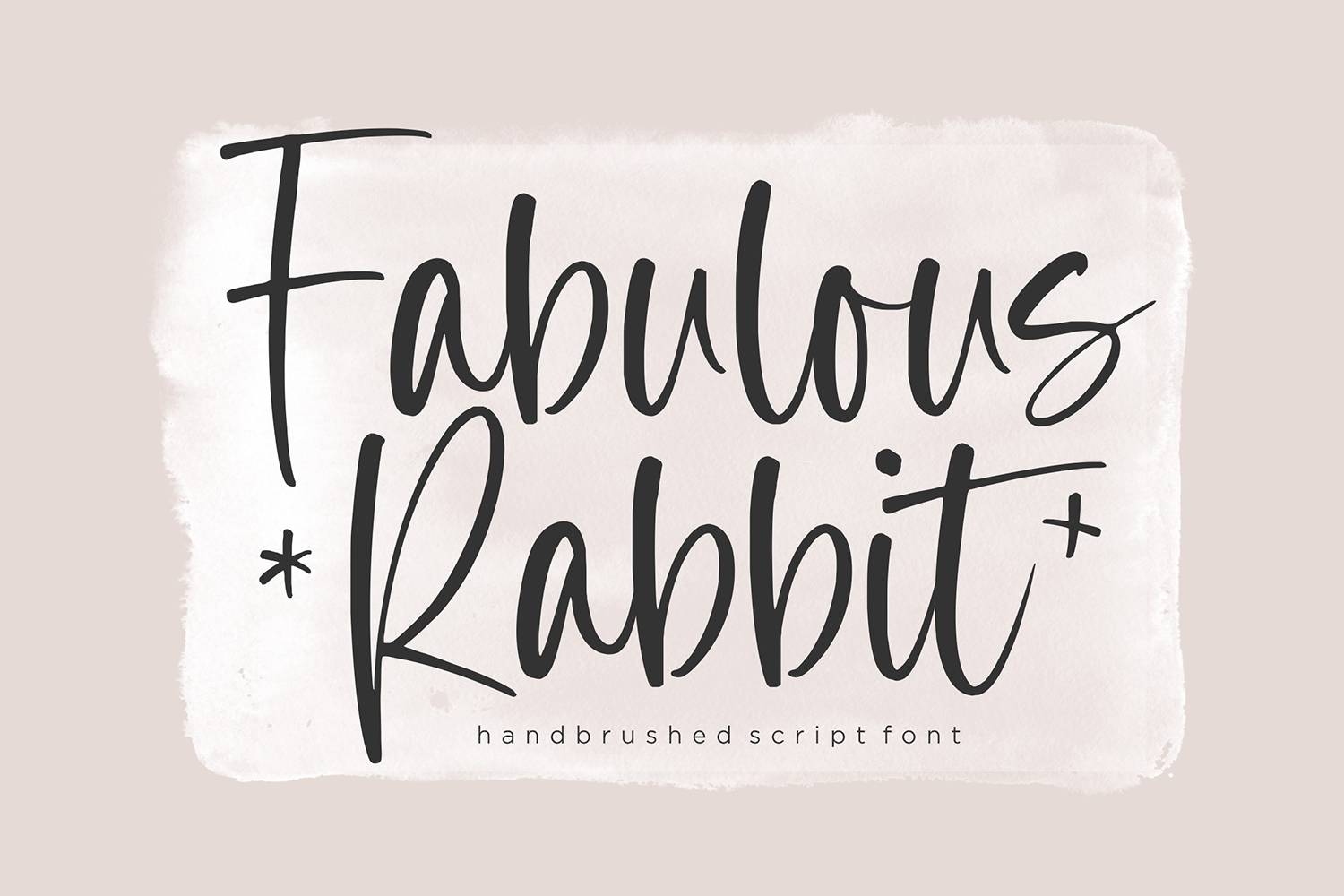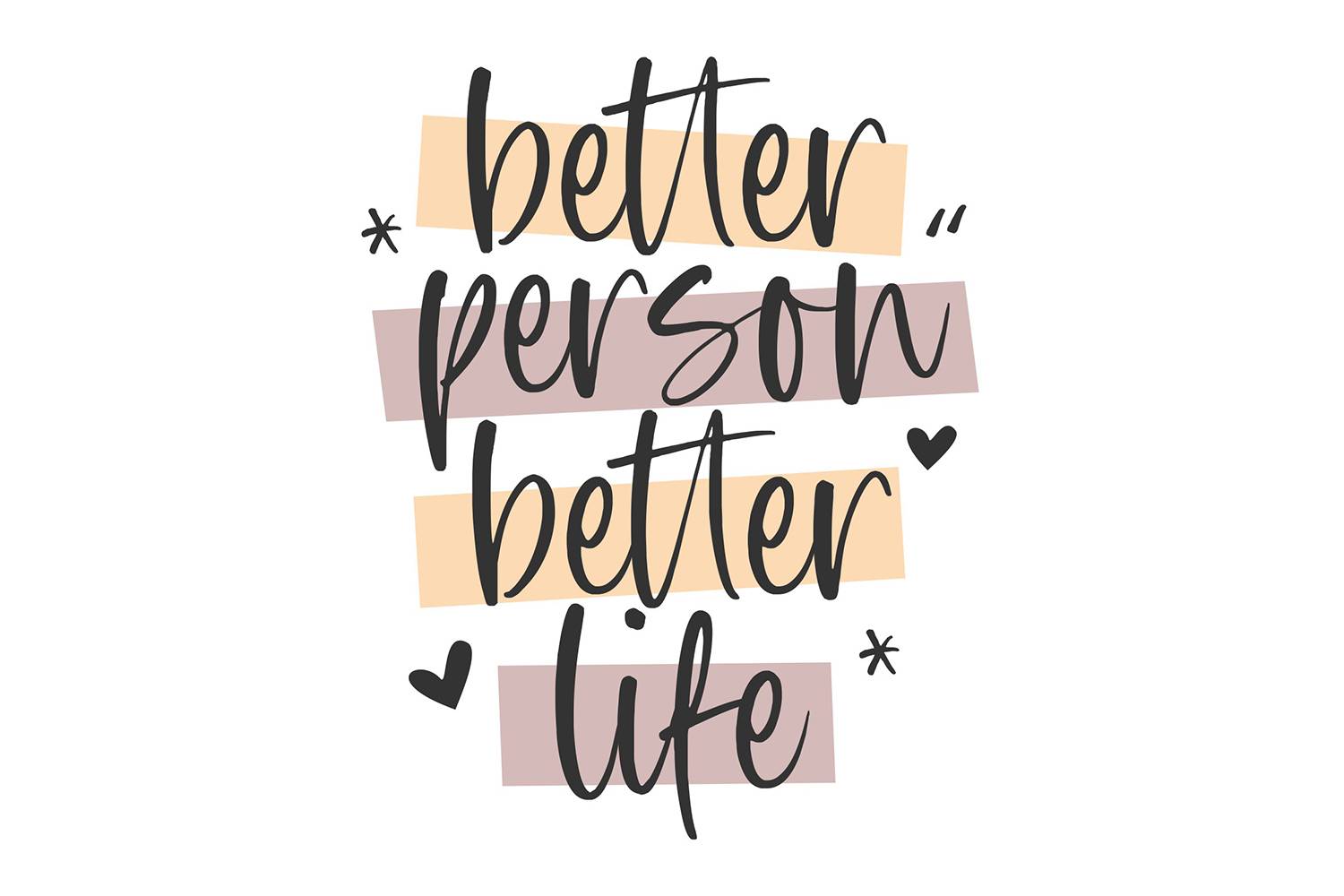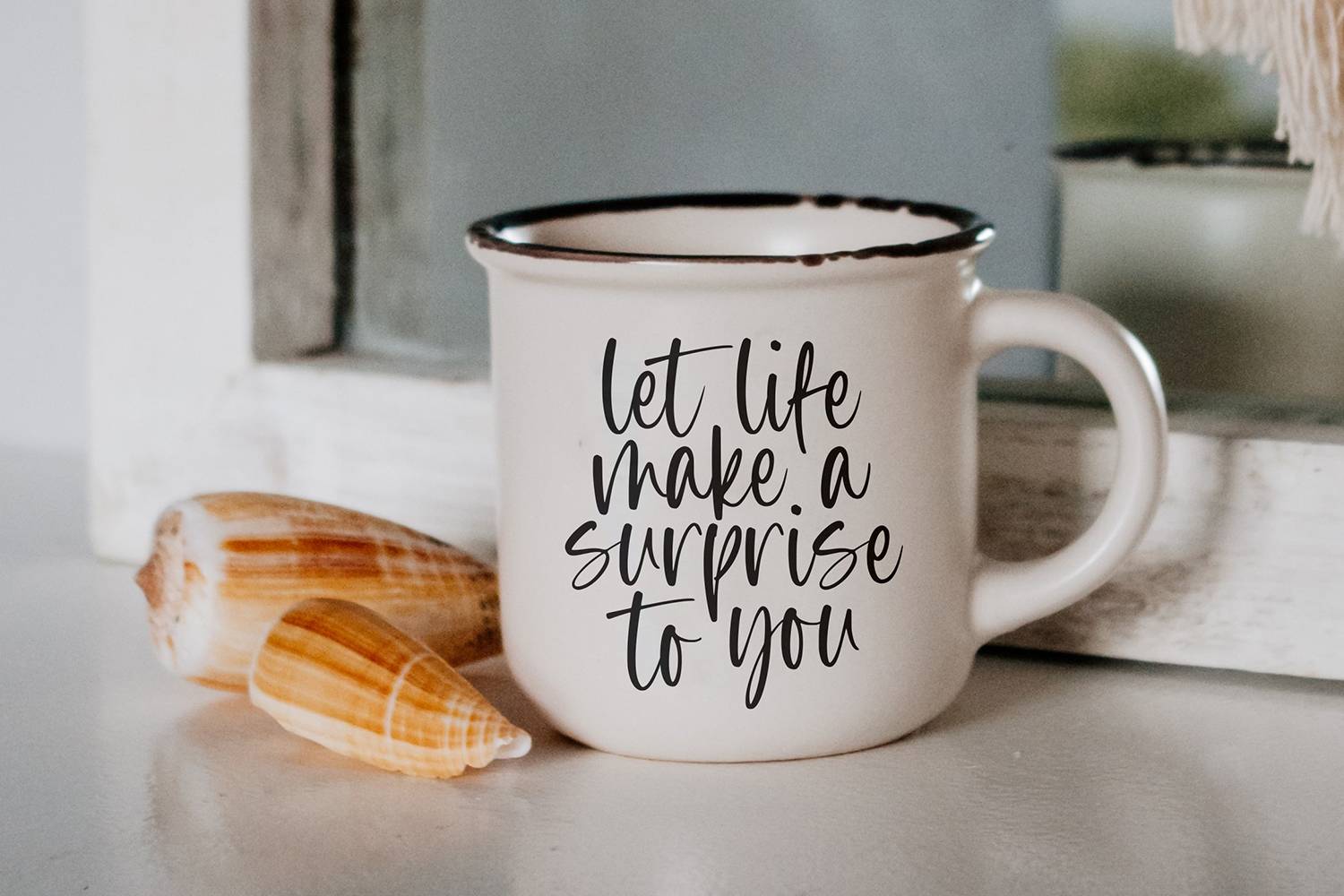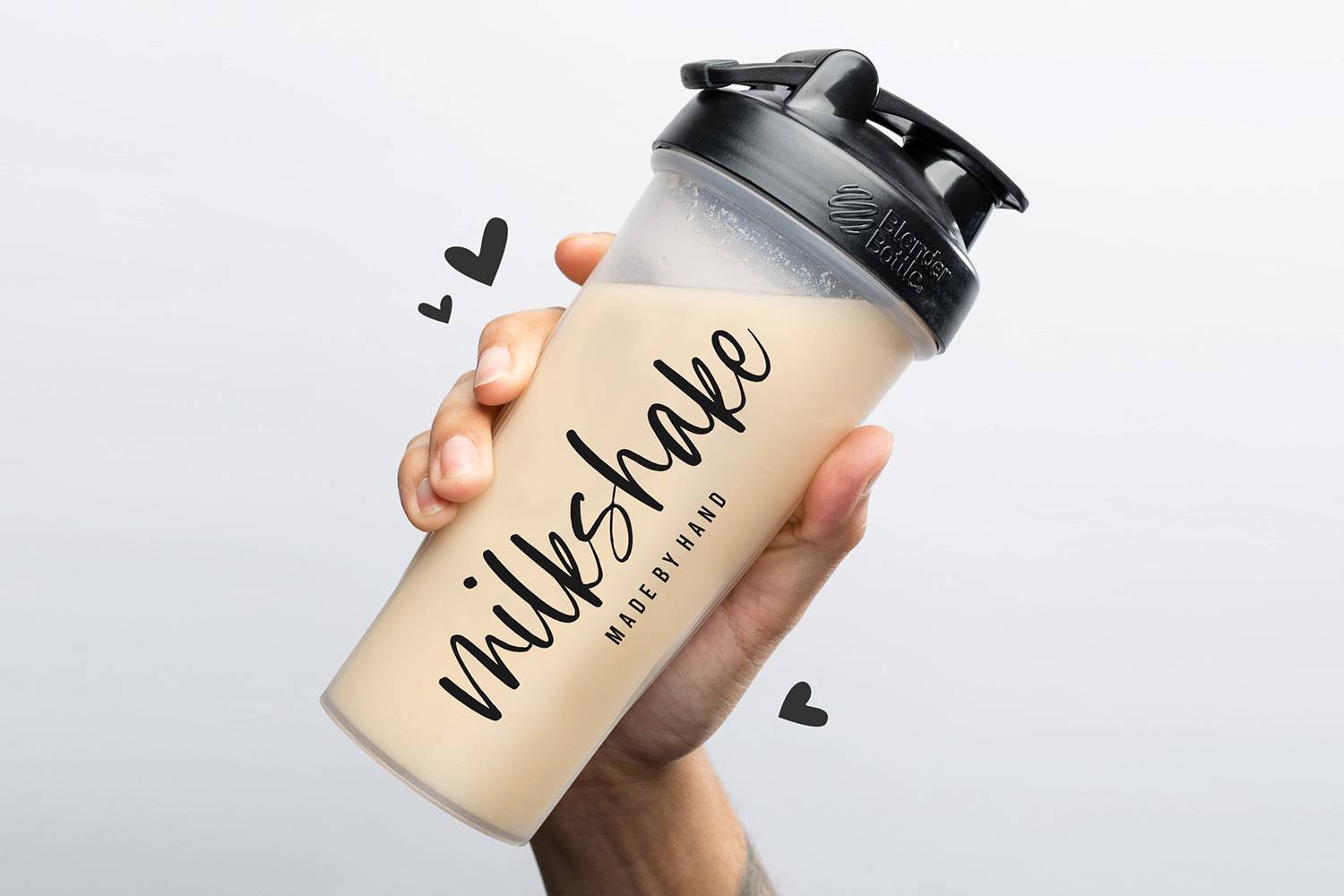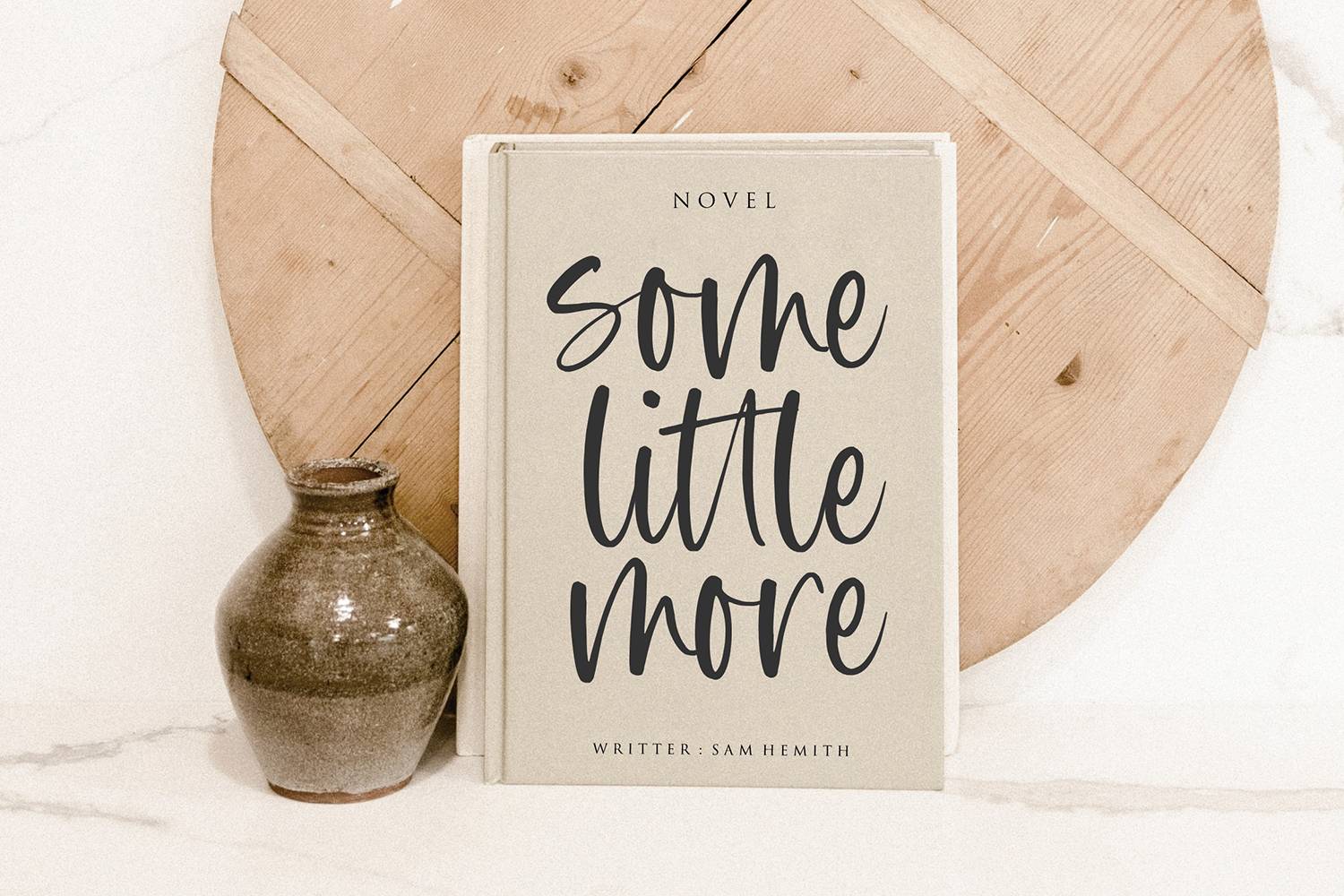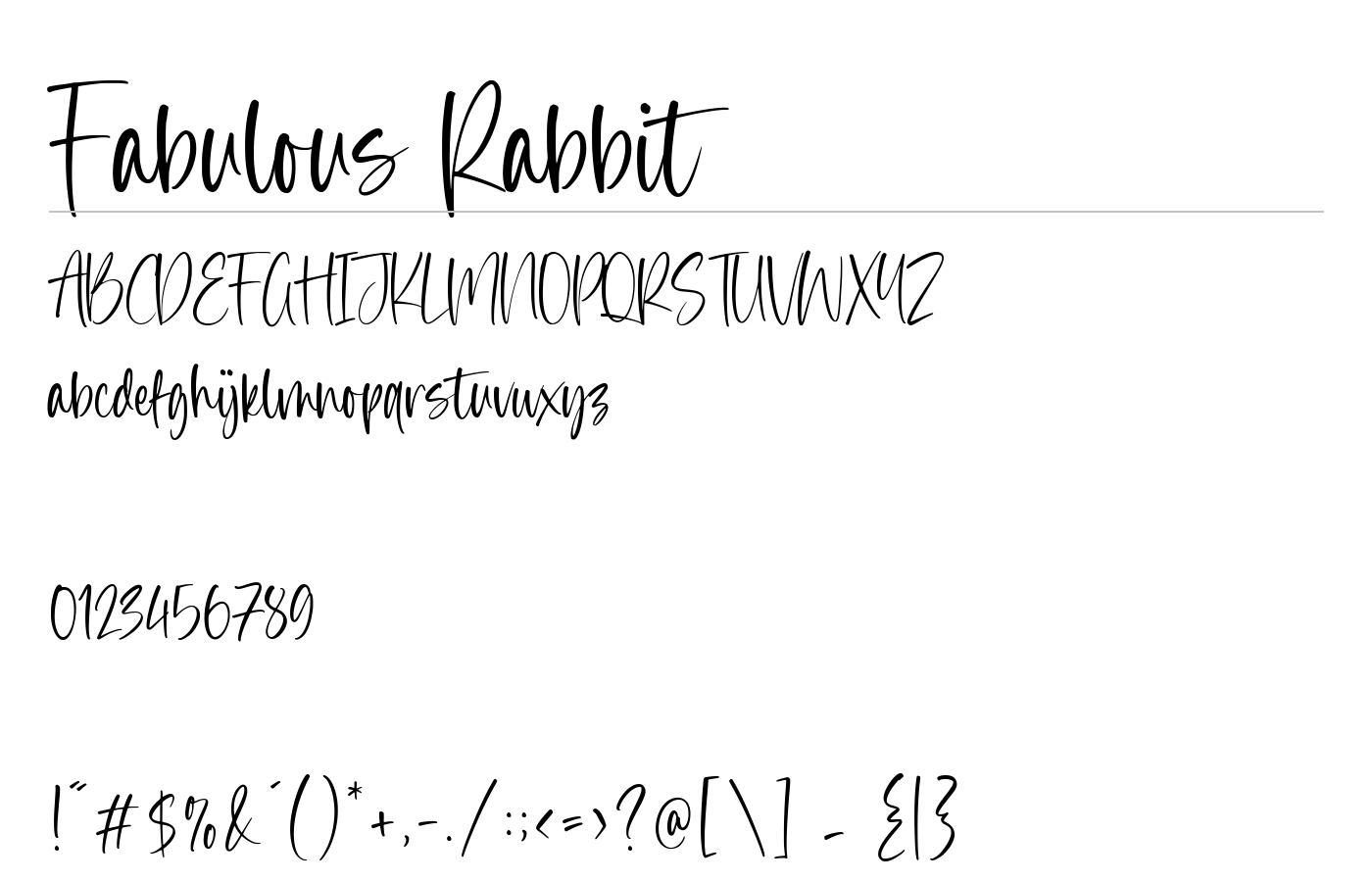
Fabulous Rabbit is a playful and casual handwritten script font that features a light and airy feel with its tall, narrow letterforms and smooth, flowing strokes. Its informal style and high x-height make it perfect for creative projects, invitations, and branding that seek a friendly, approachable vibe. This font works well in headlines and display uses where a touch of personal charm and spontaneity is desired.
Fabulous Rabbit Font
About Fabulous Rabbit Font